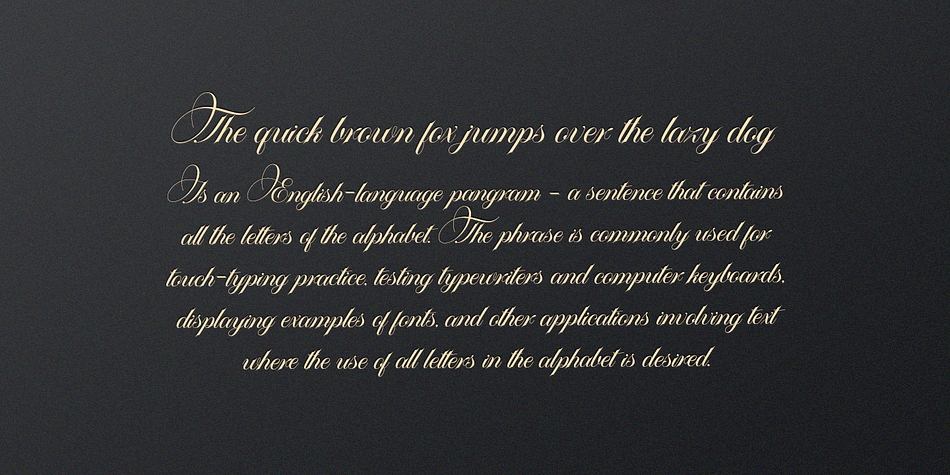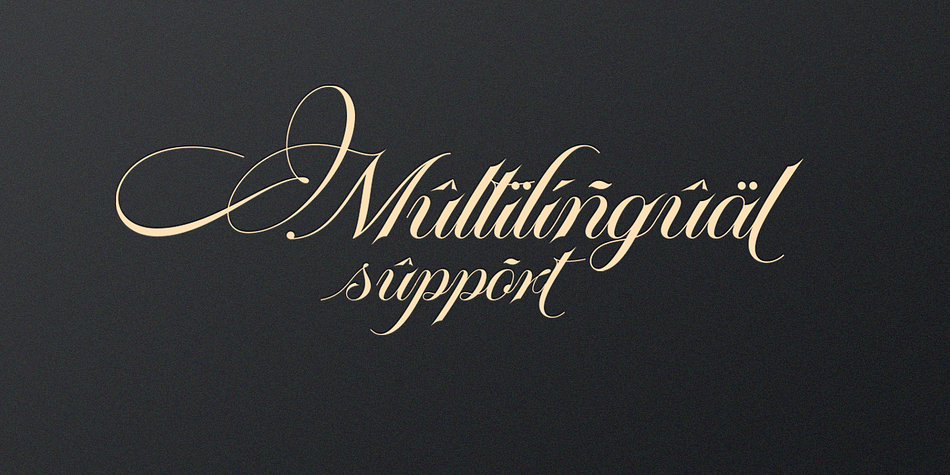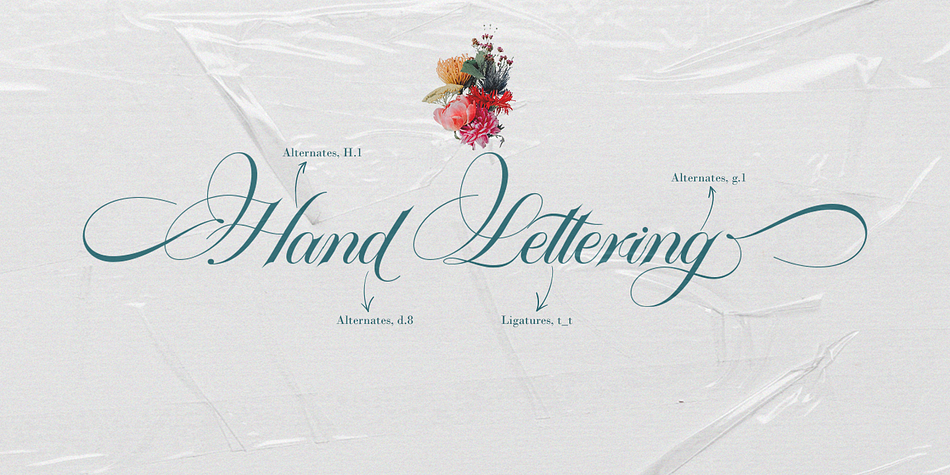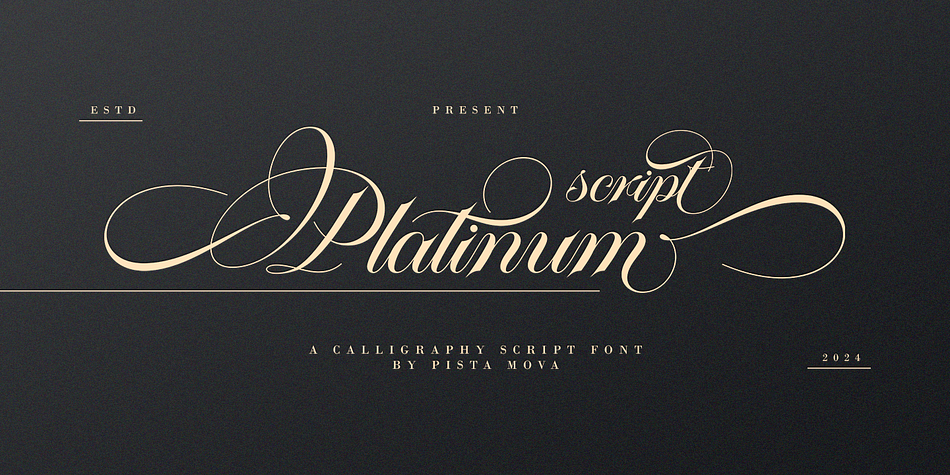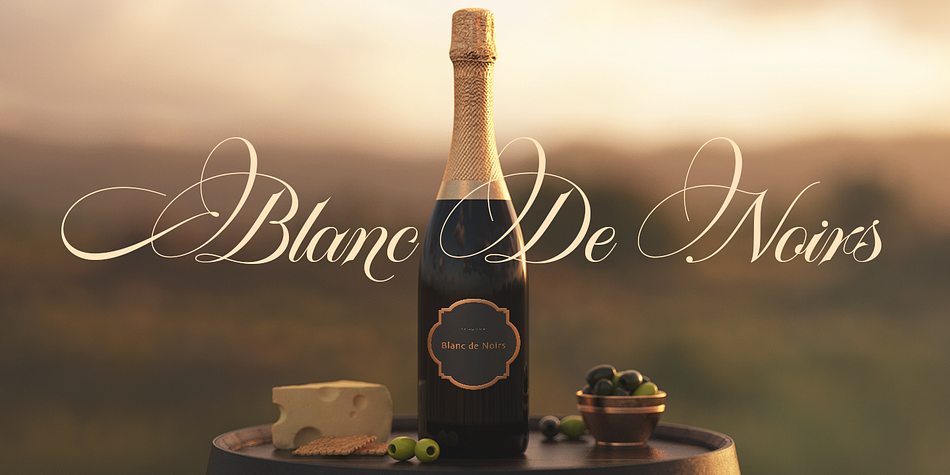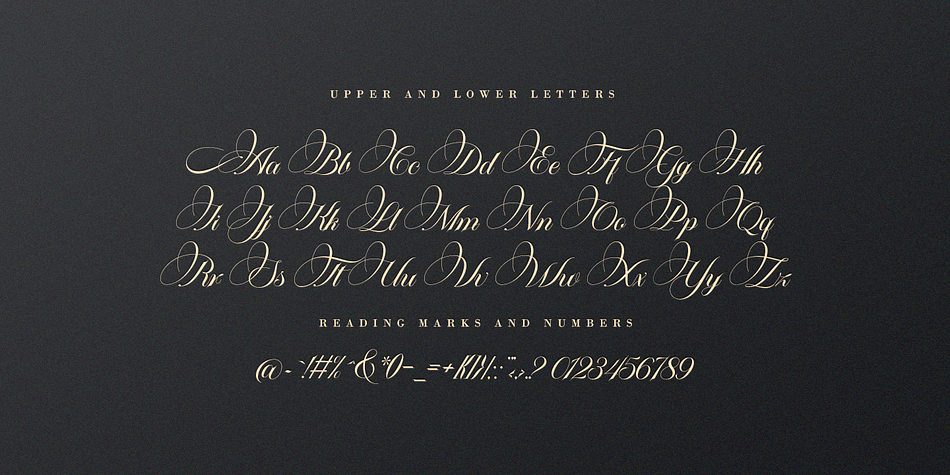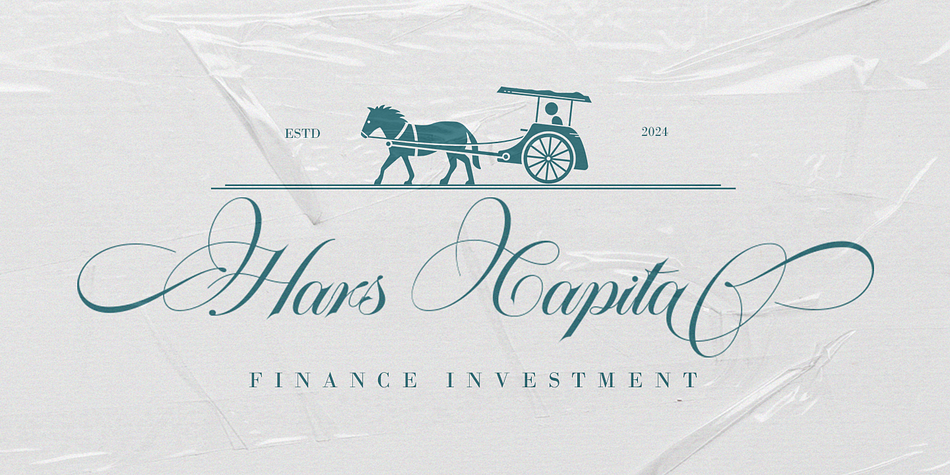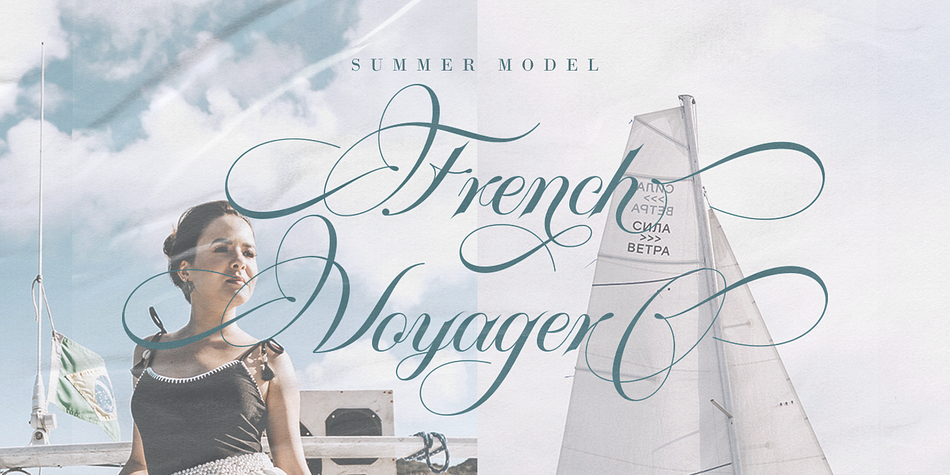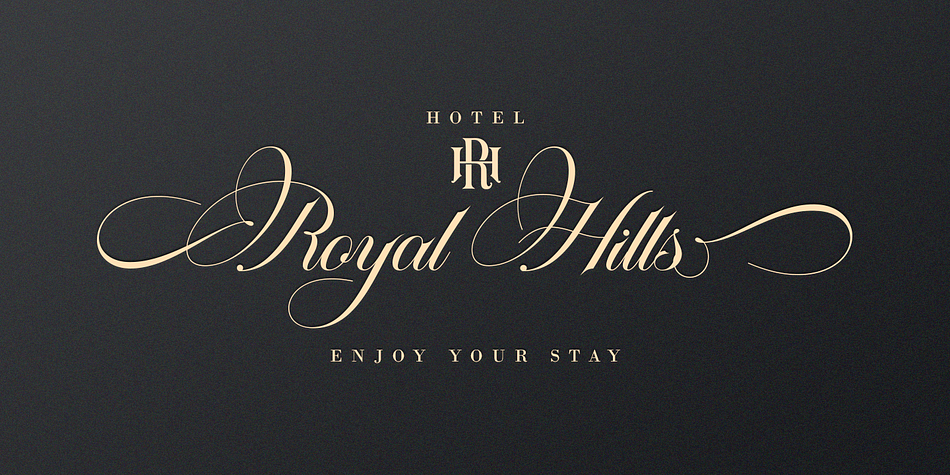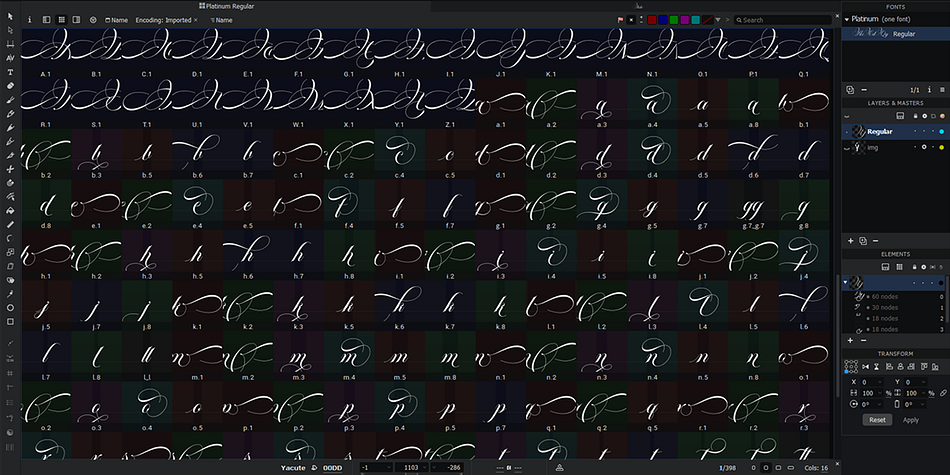
Platinum Script
Platinum Script is a modern calligraphy font family published by Pista Mova.
Platinum script is an Elegant and Soft font in your eyes, I made it with my relaxed hand. designs classic fonts but has modern elements in them, so it is very suitable for wedding media, book covers, greeting cards, logos, branding, business cards and certificates, even for any design work that requires a classic, formal or luxurious impression. Look.
Give Platinum script a try, enjoy OpenType’s wealth of features and let its elegant fun and excitement make you happy and enhance your creativity! You can use this font very easily.
Includes multilingual support
There are many features in it. Contains a complete set of lowercase and uppercase letters, punctuation, numbers, and multilingual support. This font also includes several ligatures and alternative Stylistic Set styles for those of you who have software capable of working with OpenType (Corel Draw/Photoshop/Illustrator/InDesign).